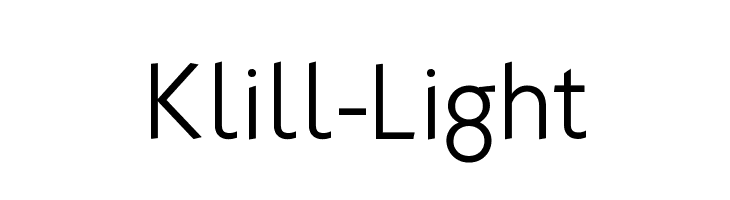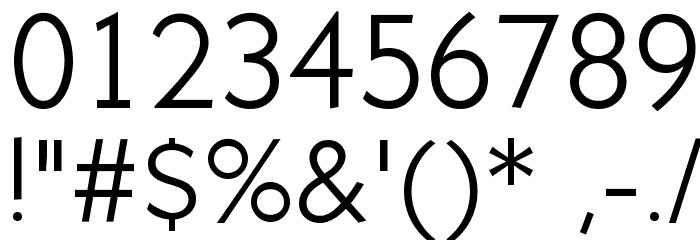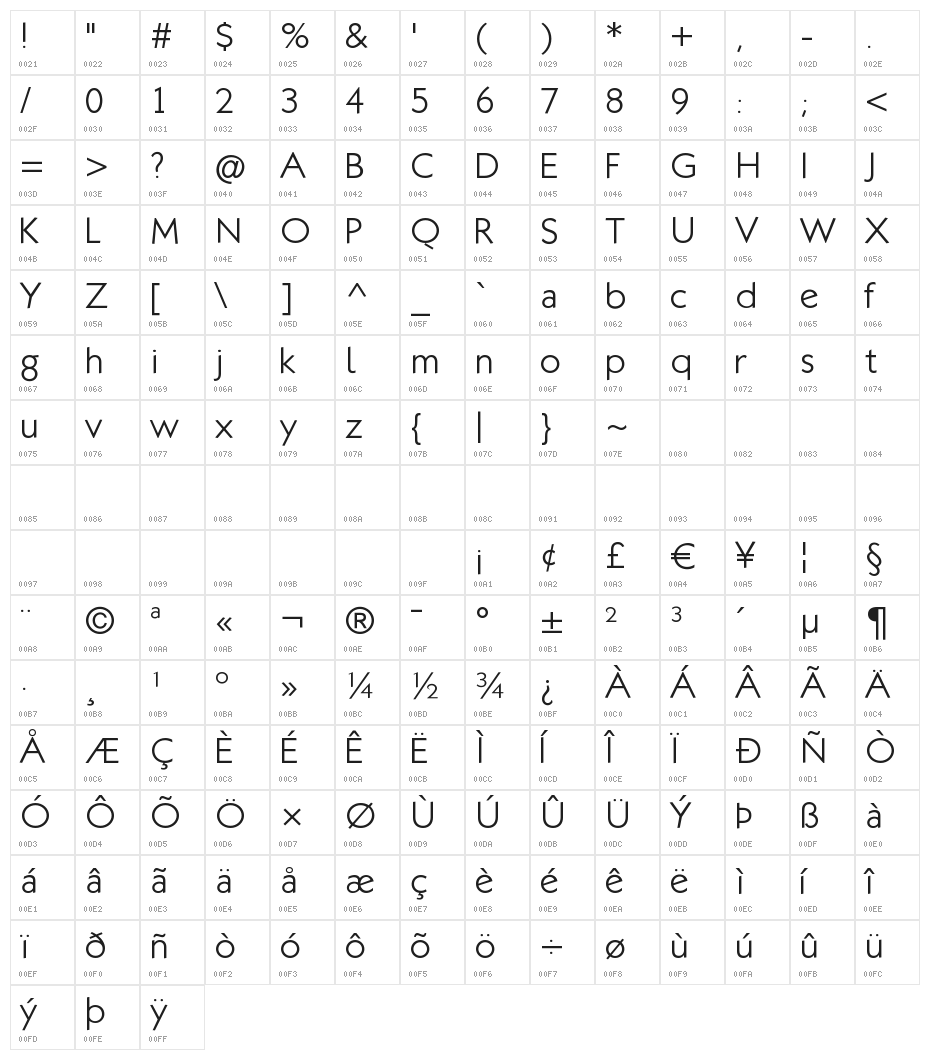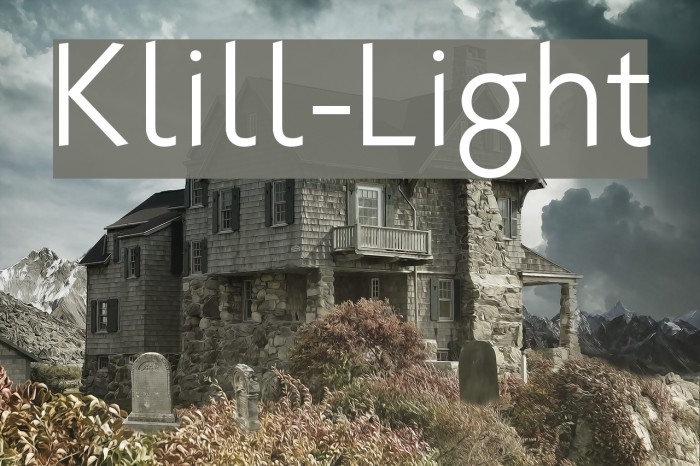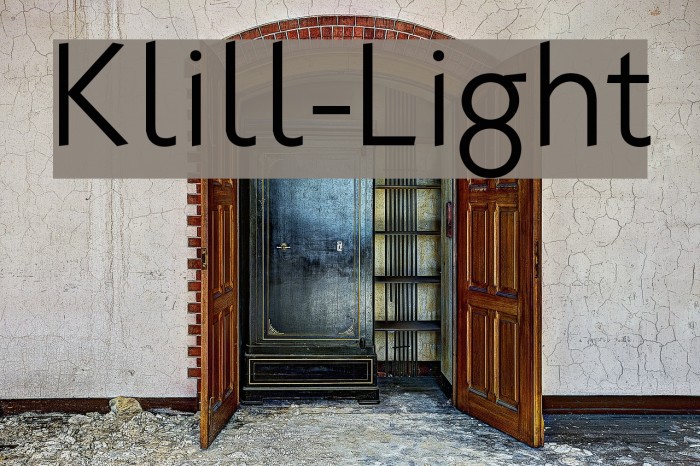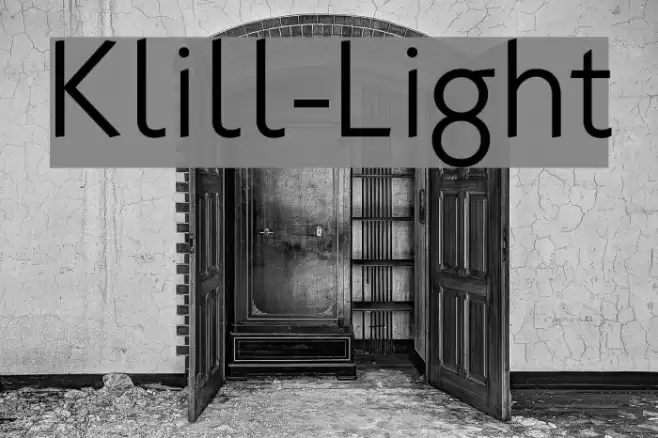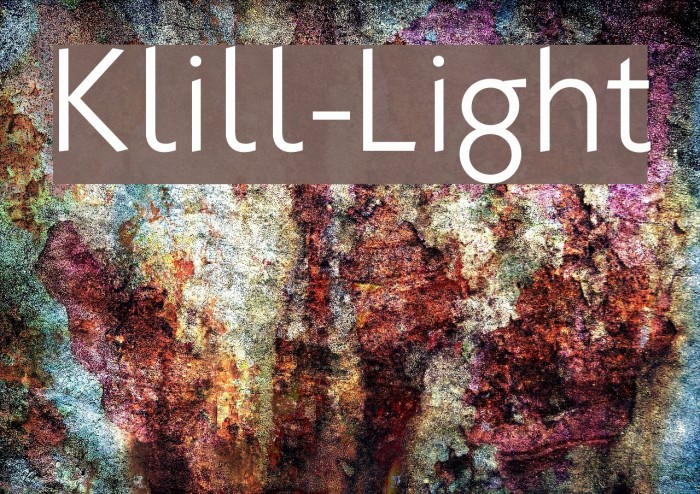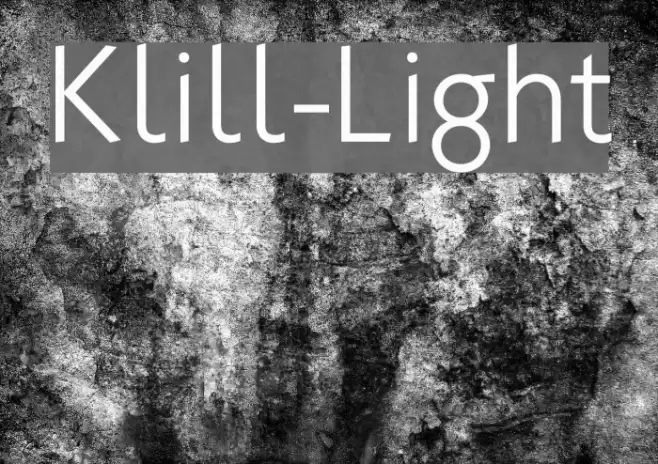
Klill-Light Font
Klill-Light Description
This font features a clean and modern sans-serif style with a light weight, making it ideal for minimalist designs. The characters are well-proportioned, with a uniform stroke width that provides a sleek and contemporary appearance. The uppercase letters are slightly taller than the lowercase, maintaining a consistent baseline that enhances readability. The numerals are clear and distinct, while the special characters are elegantly integrated, ensuring versatility across various applications. The overall design is balanced, with a subtle elegance that makes it suitable for both digital and print media.